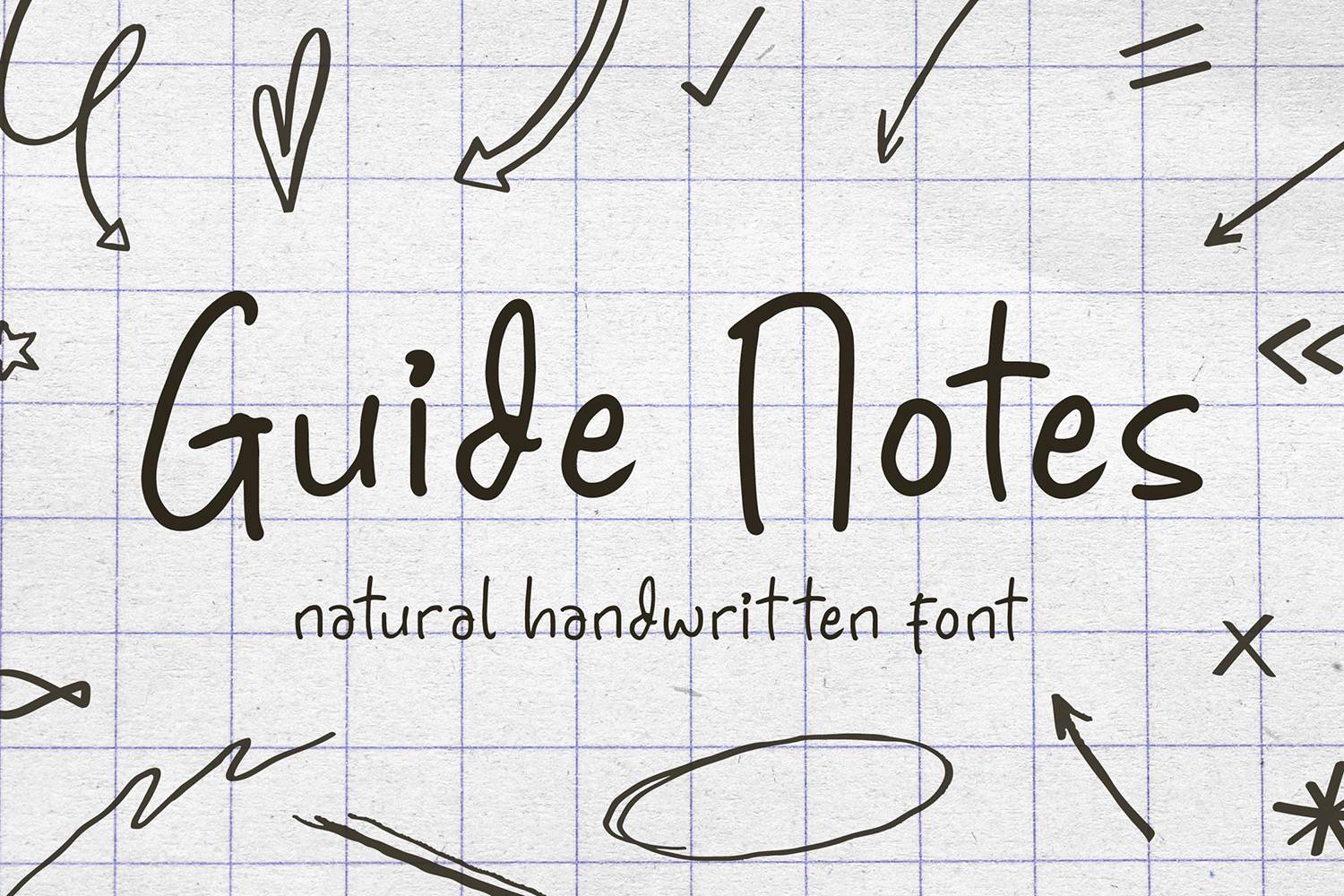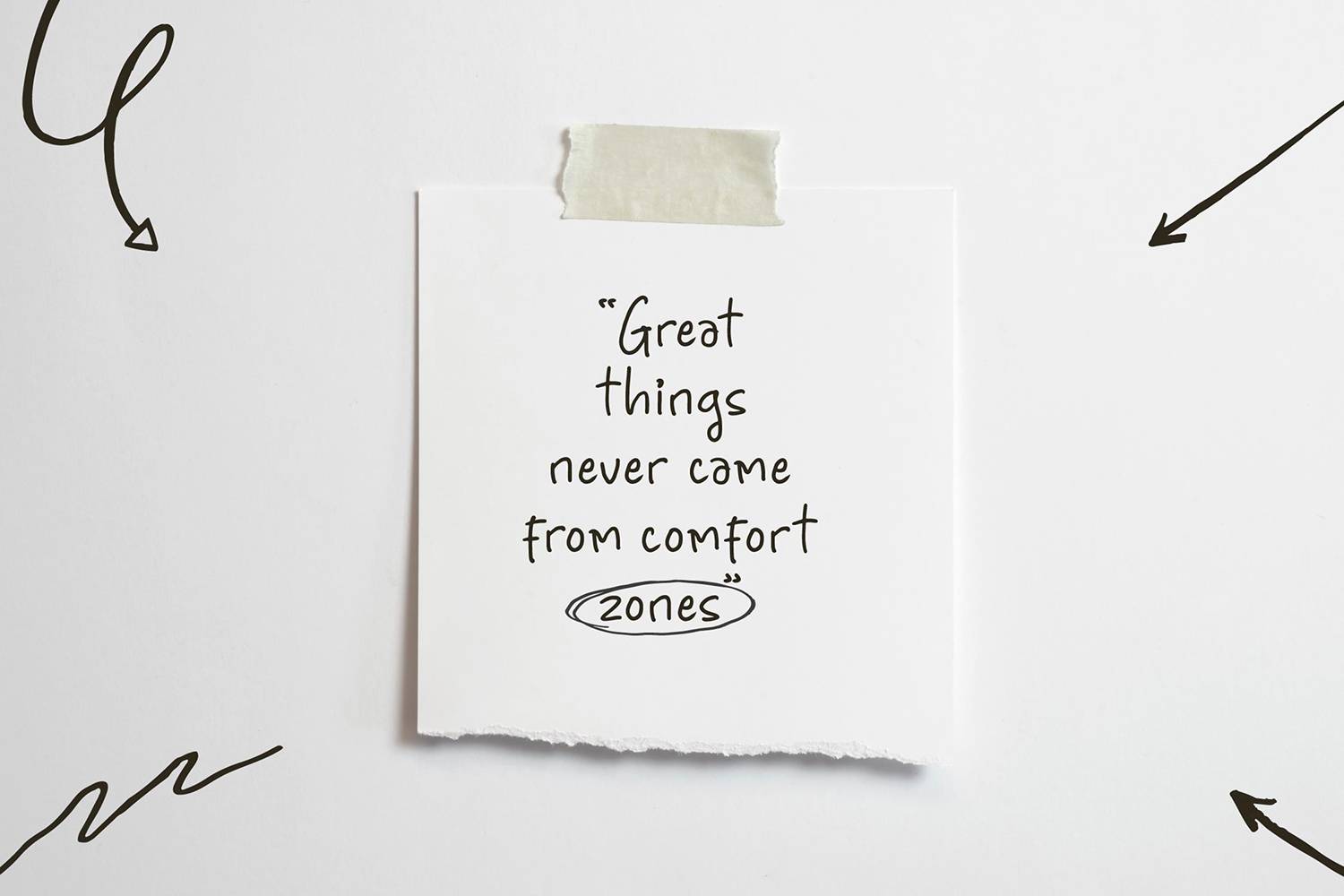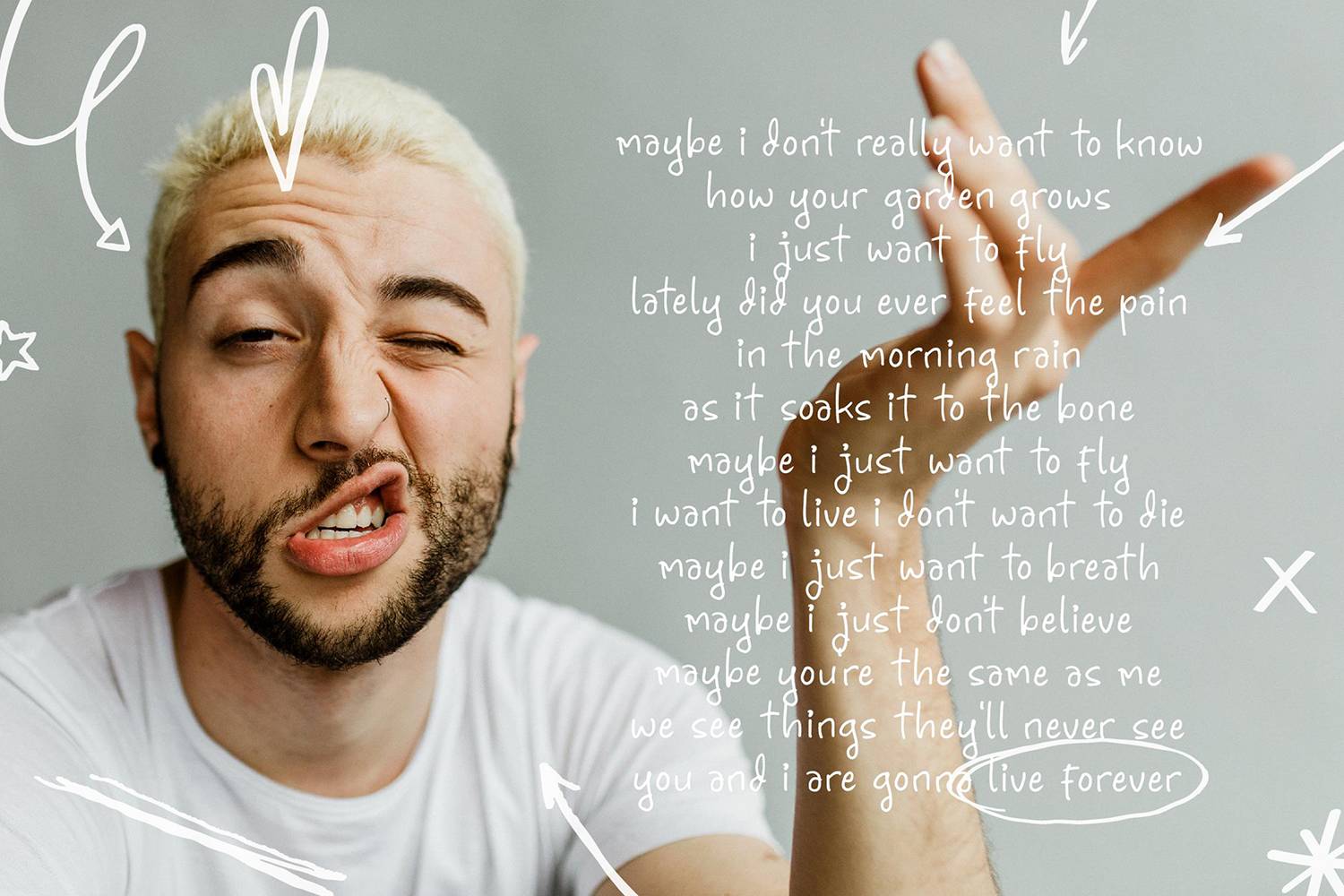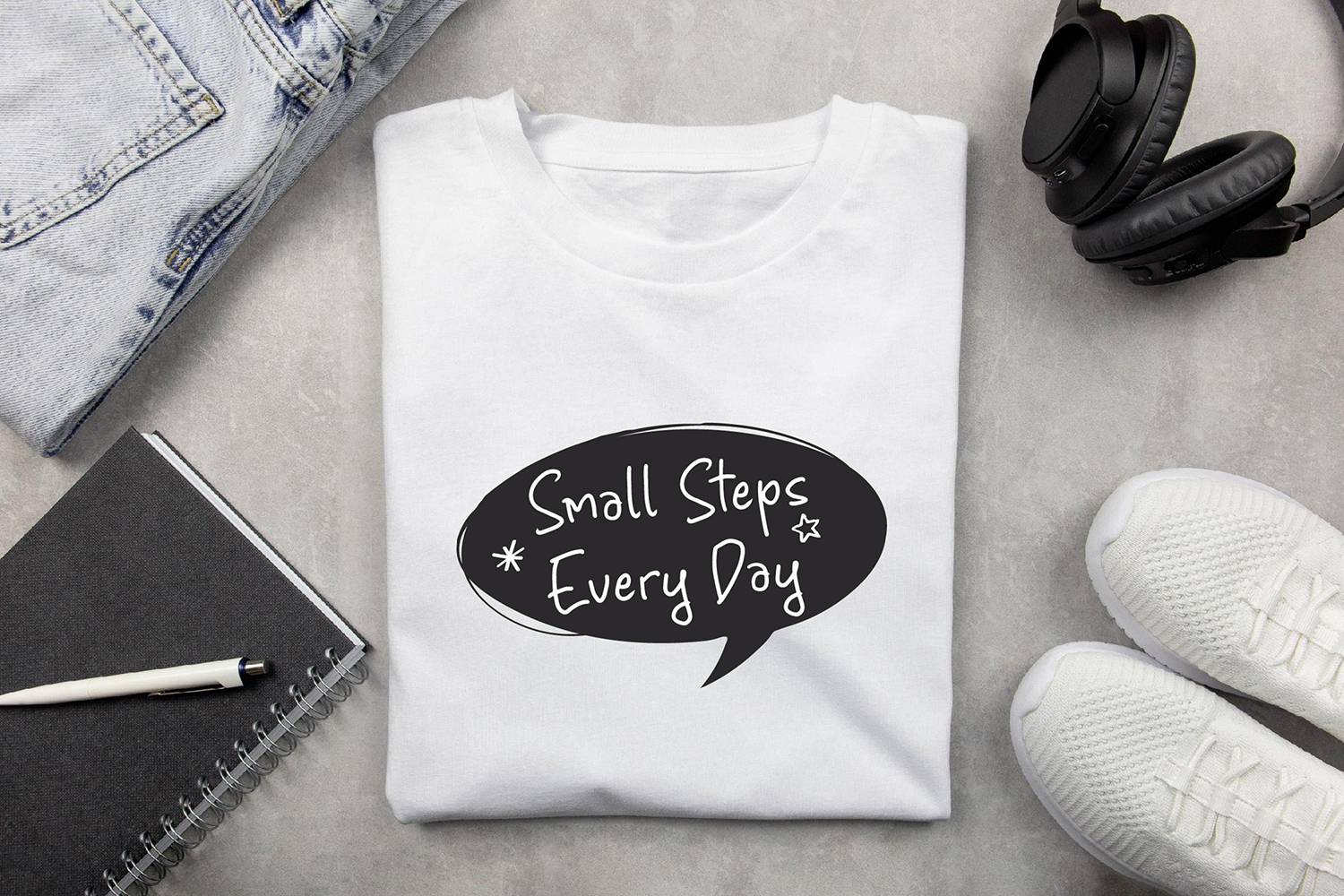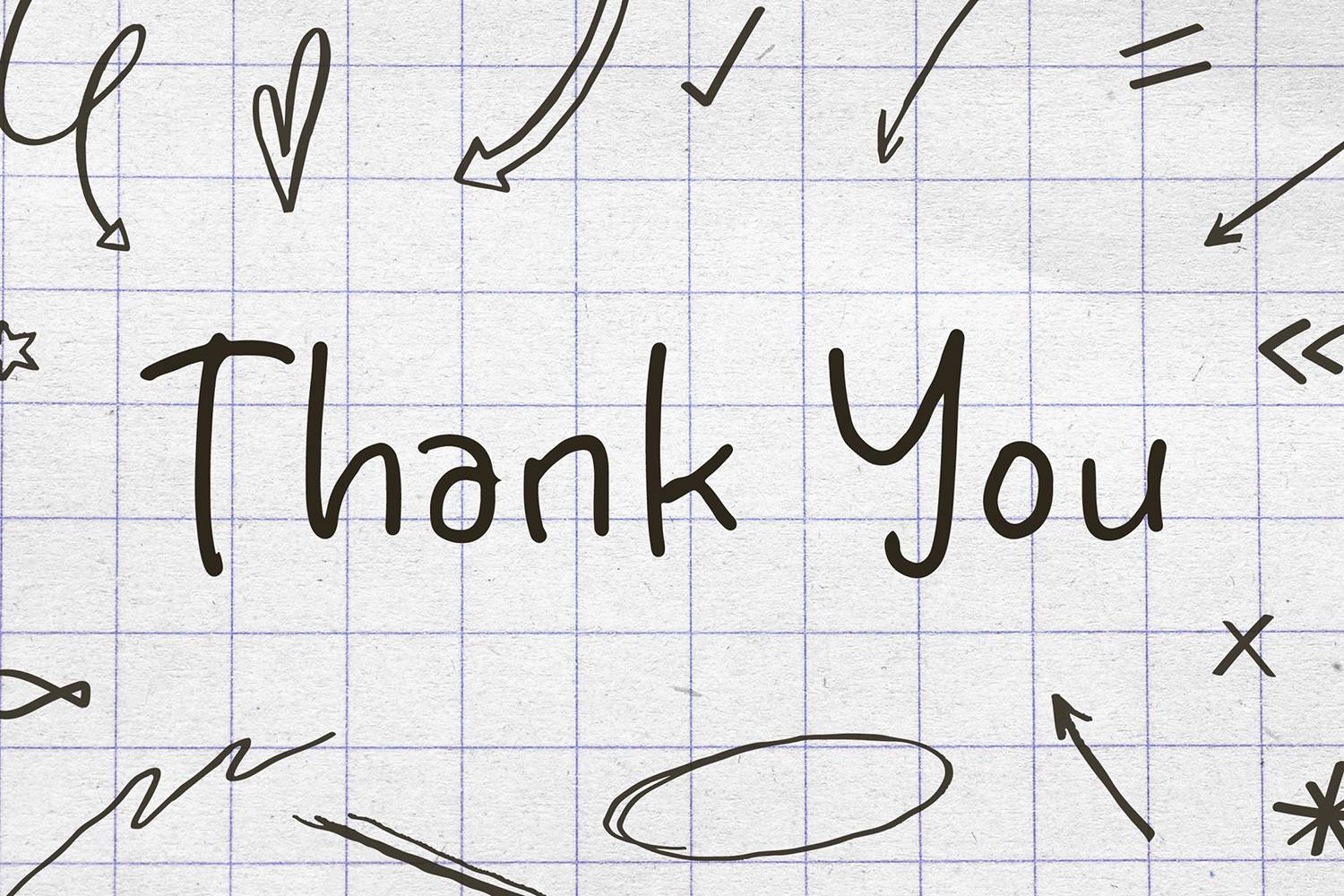
Guide Notes is a casual, handwritten sans serif font characterized by its light weight and narrow, slightly irregular letterforms that evoke a personal, informal style. Its tall x-height and simple, playful strokes create an approachable and friendly feel, making it ideal for creative projects, informal branding, and expressive headlines where a human touch is desired. This font works well for notes, invitations, and designs that benefit from a warm, handwritten appearance.
Guide Notes Font